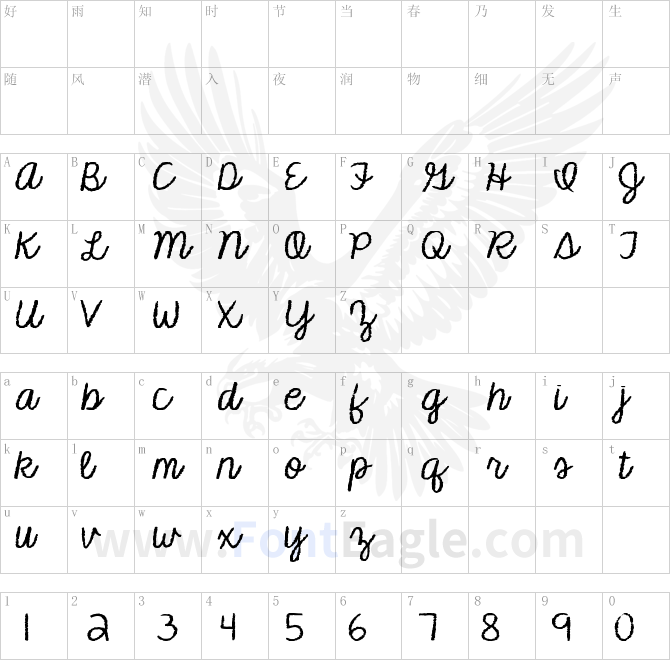
- Font name:KG Makes You Stronger
- Font Subfamily ID:KimberlyGeswein: KG Makes You Stronger: 2012
- Font Full Name:KG Makes You Stronger
- Postscript:KGMakesYouStronger